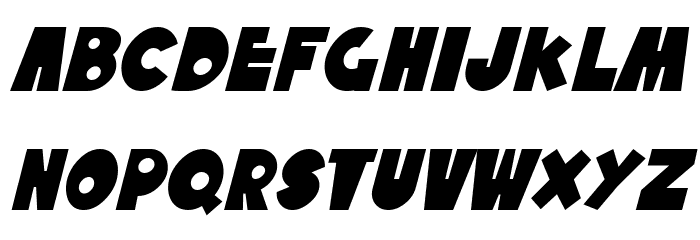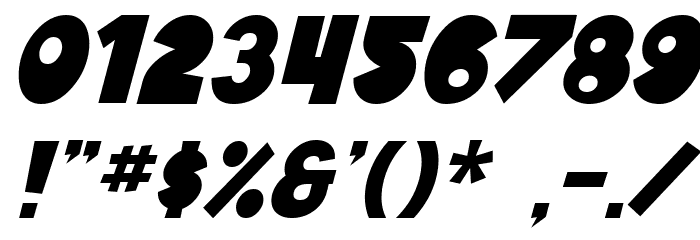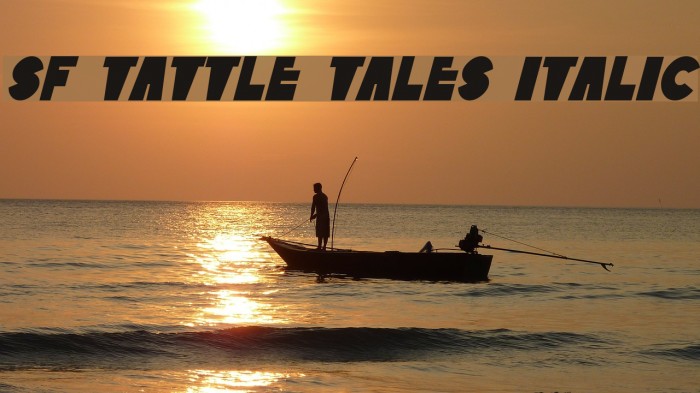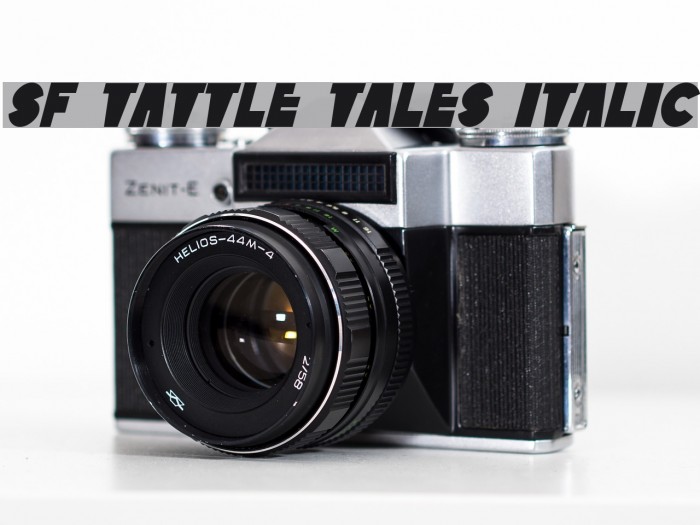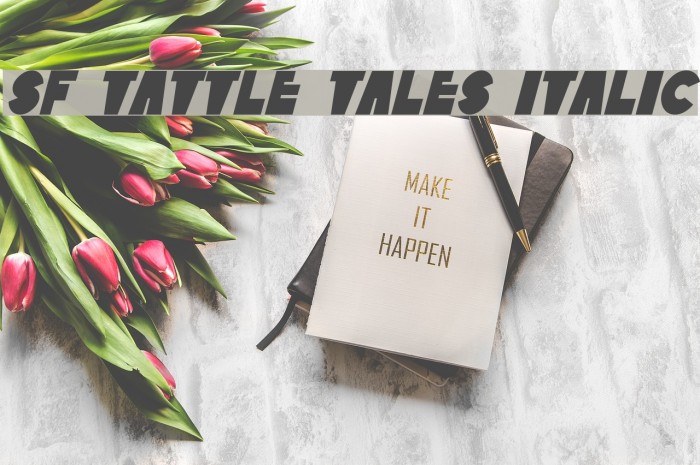
SF Tattle Tales Italic Font
This font features a bold and dynamic style with a strong italic slant, giving it a sense of motion and energy. The characters are thick and robust, with a playful yet assertive appearance. The rounded edges and smooth curves add a touch of friendliness, while the consistent stroke width maintains clarity and readability. The font's design is both modern and eye-catching, making it suitable for various creative applications. Its unique style can capture attention and convey a sense of fun and excitement.
A bold, italic font with a dynamic and playful style.
- Proposed Projects: Ideal for posters, advertising, branding, and any project requiring a bold and energetic typeface.